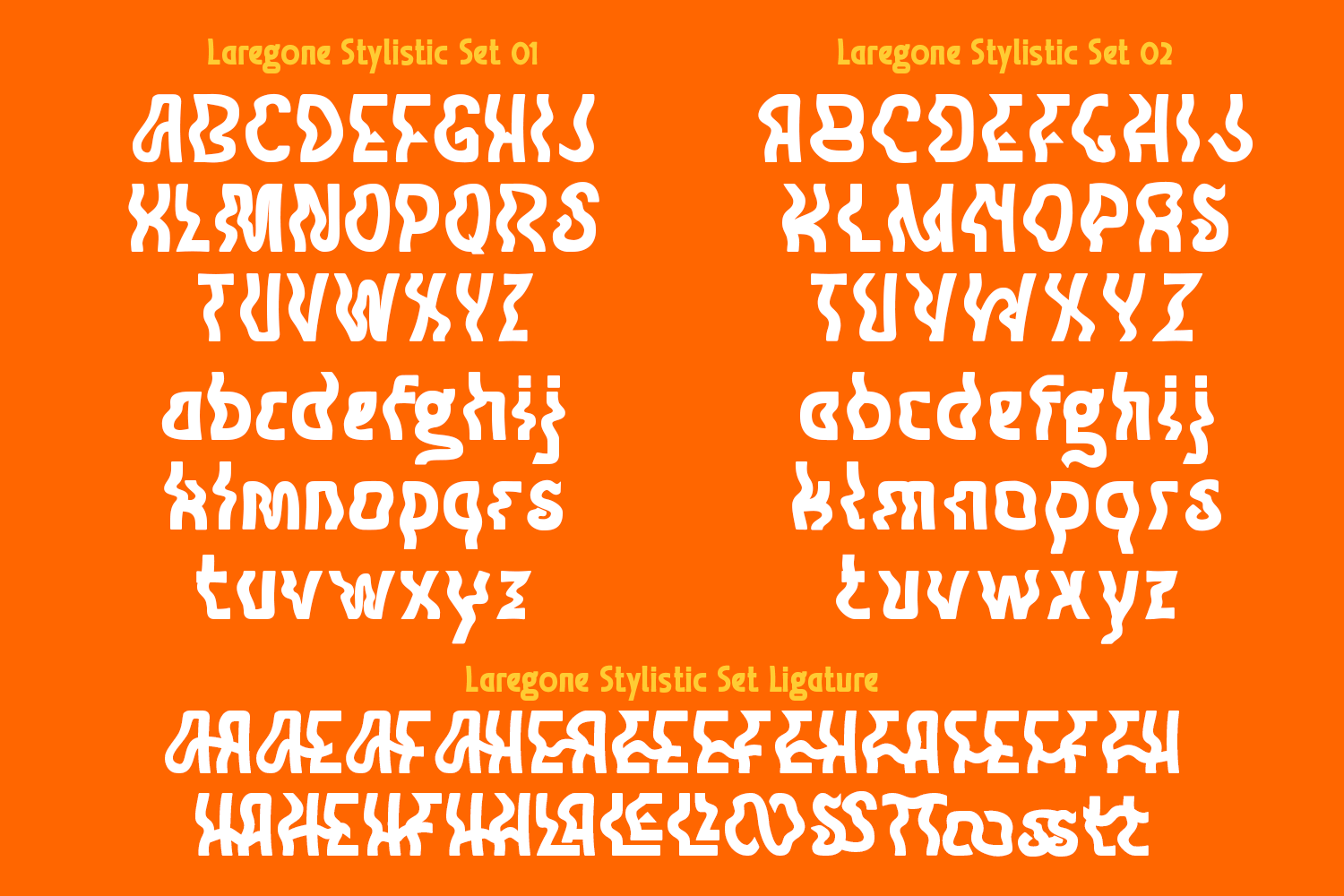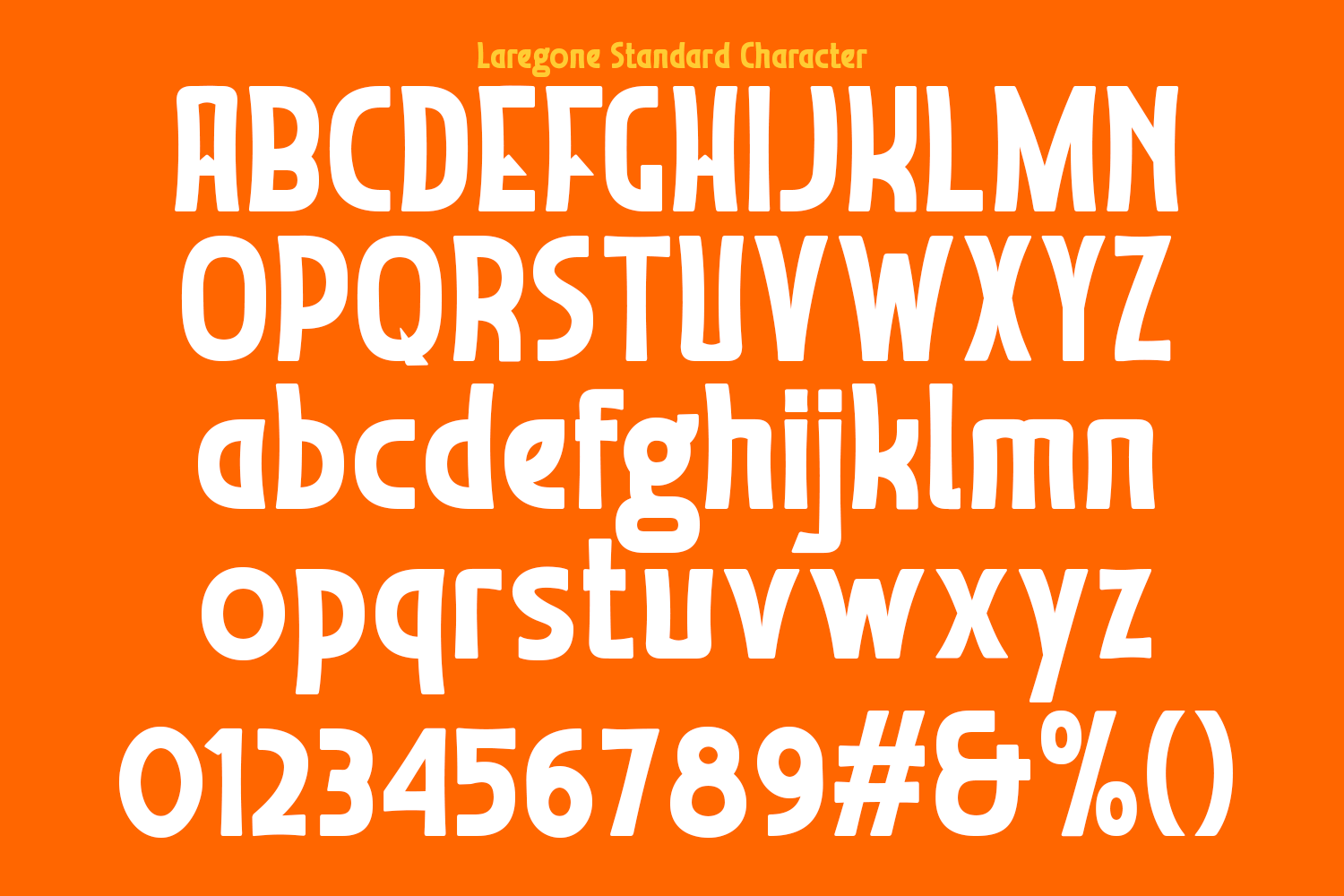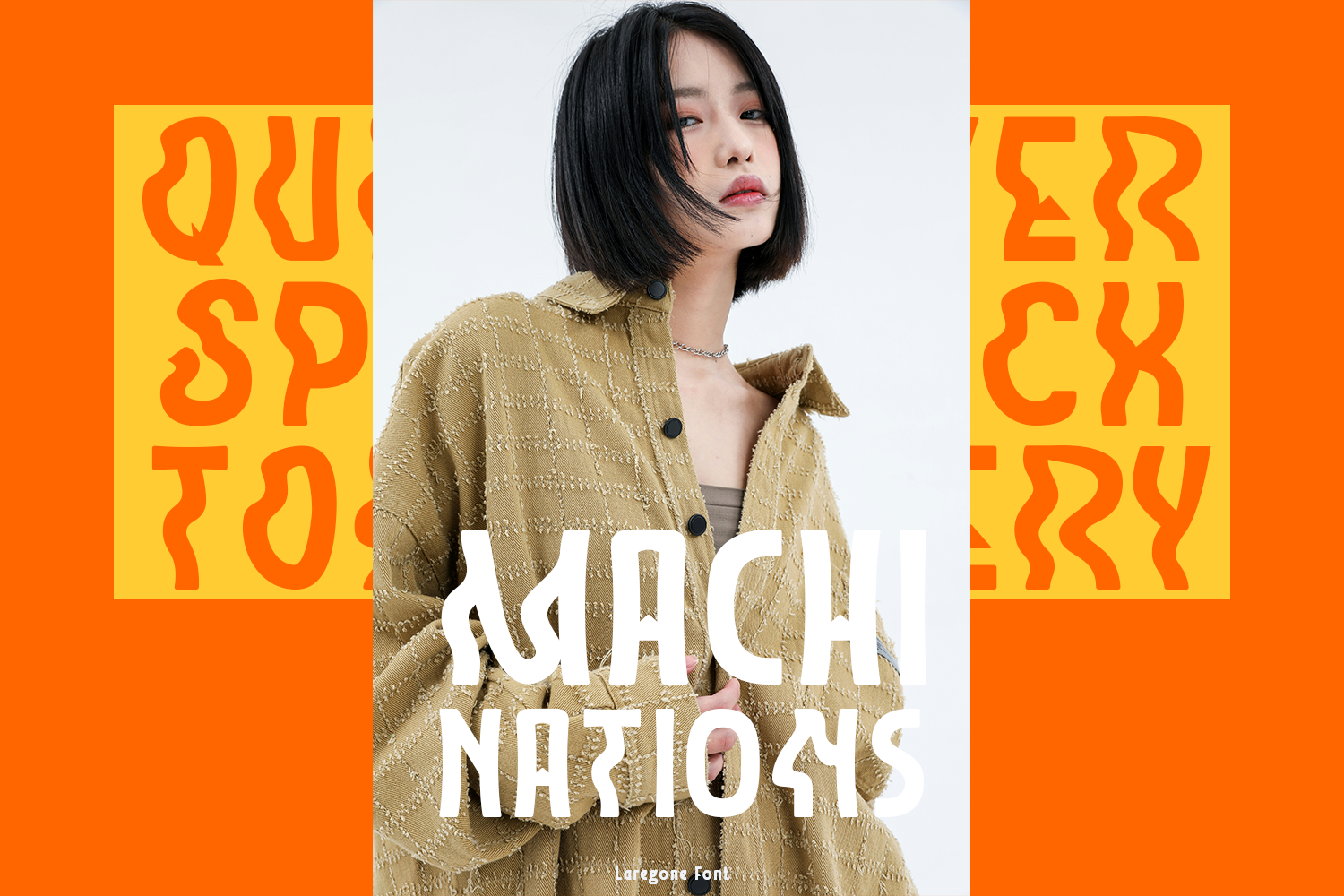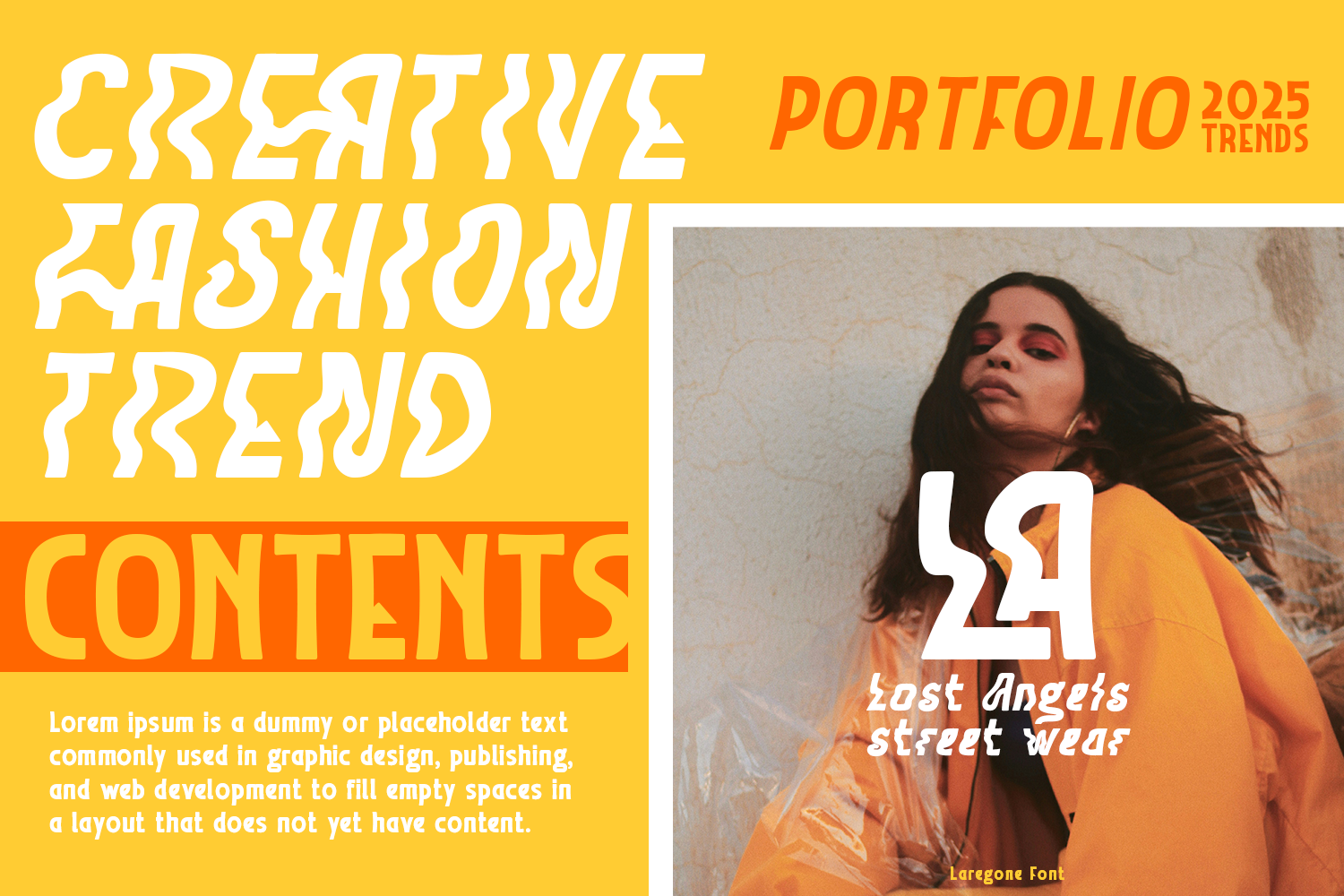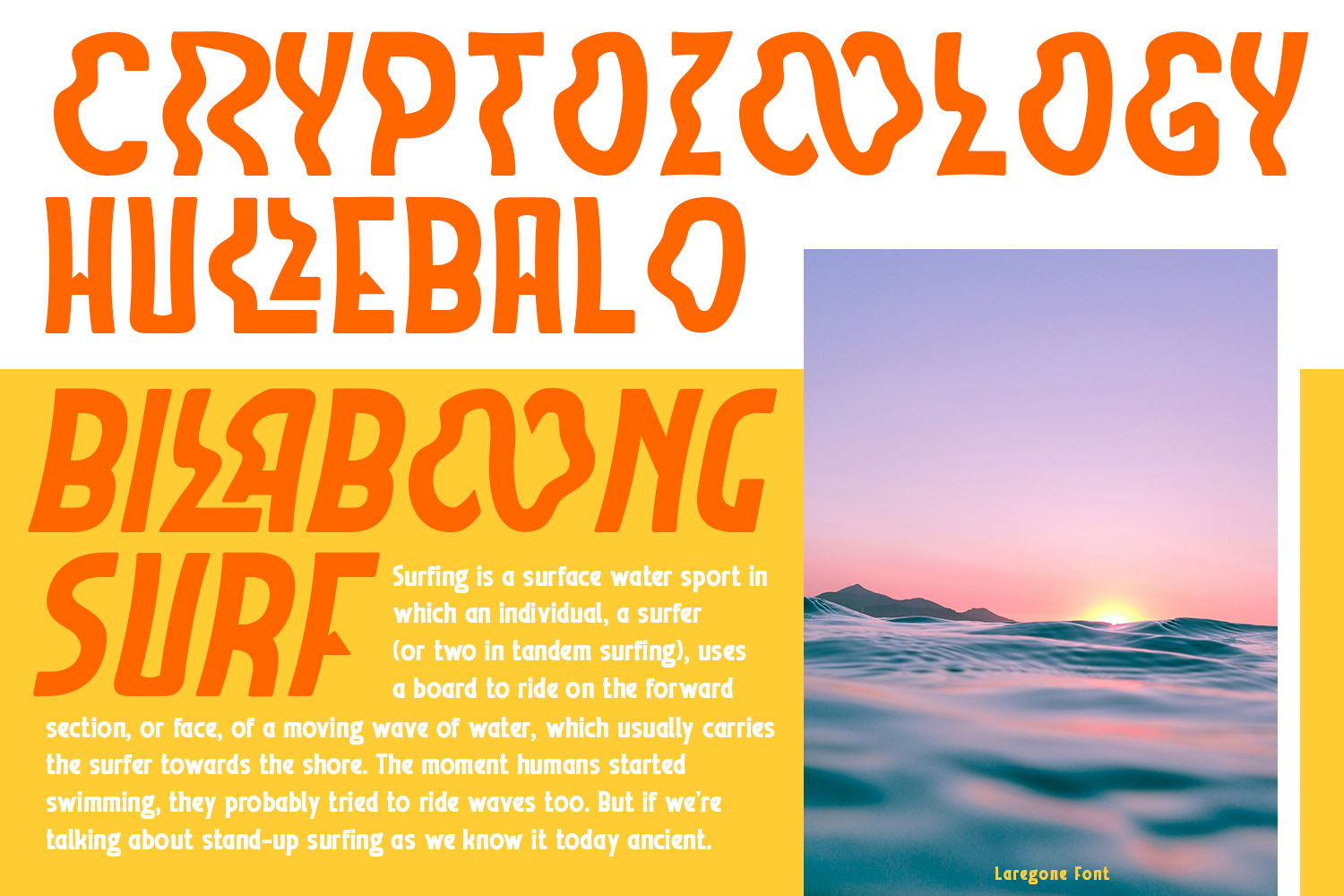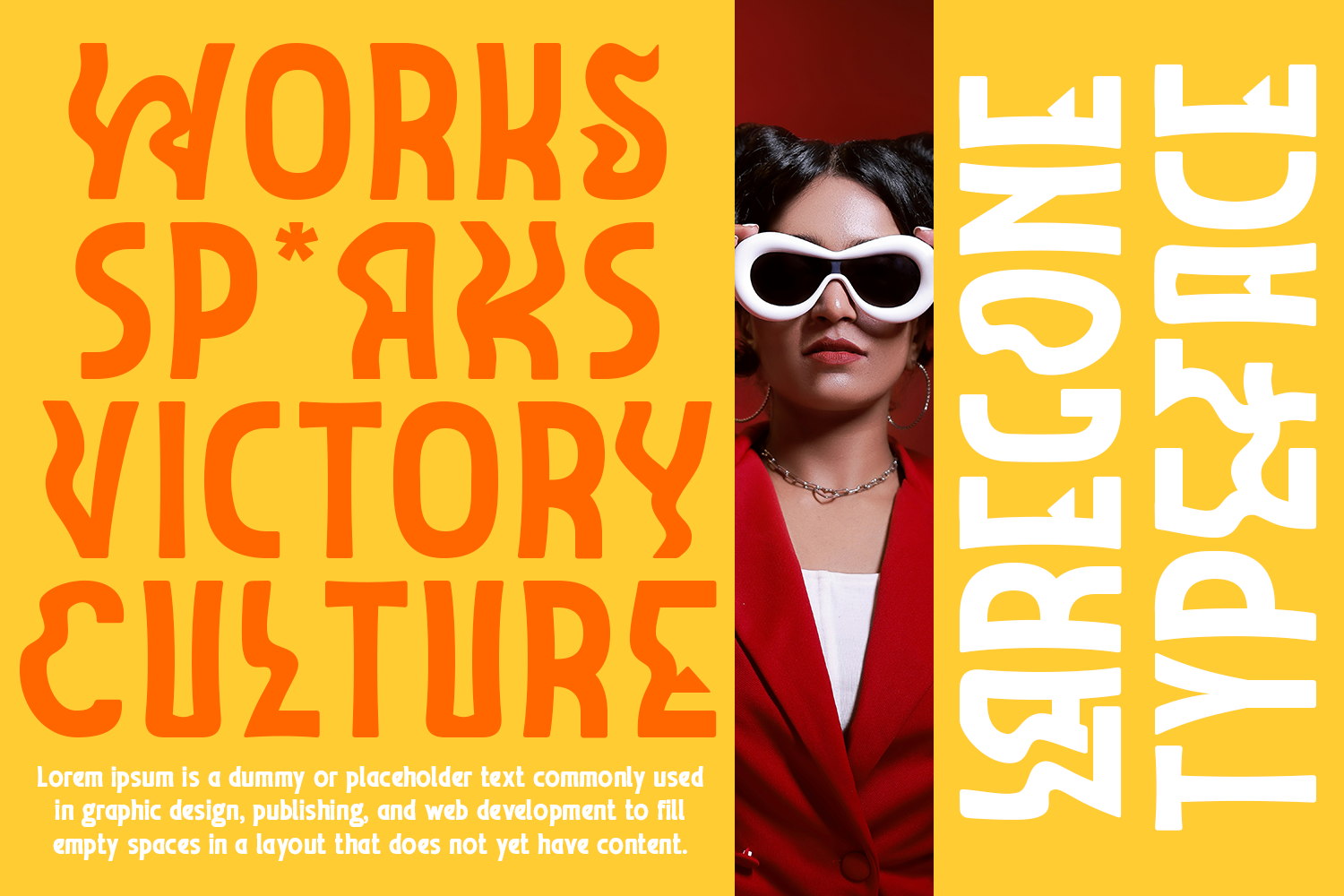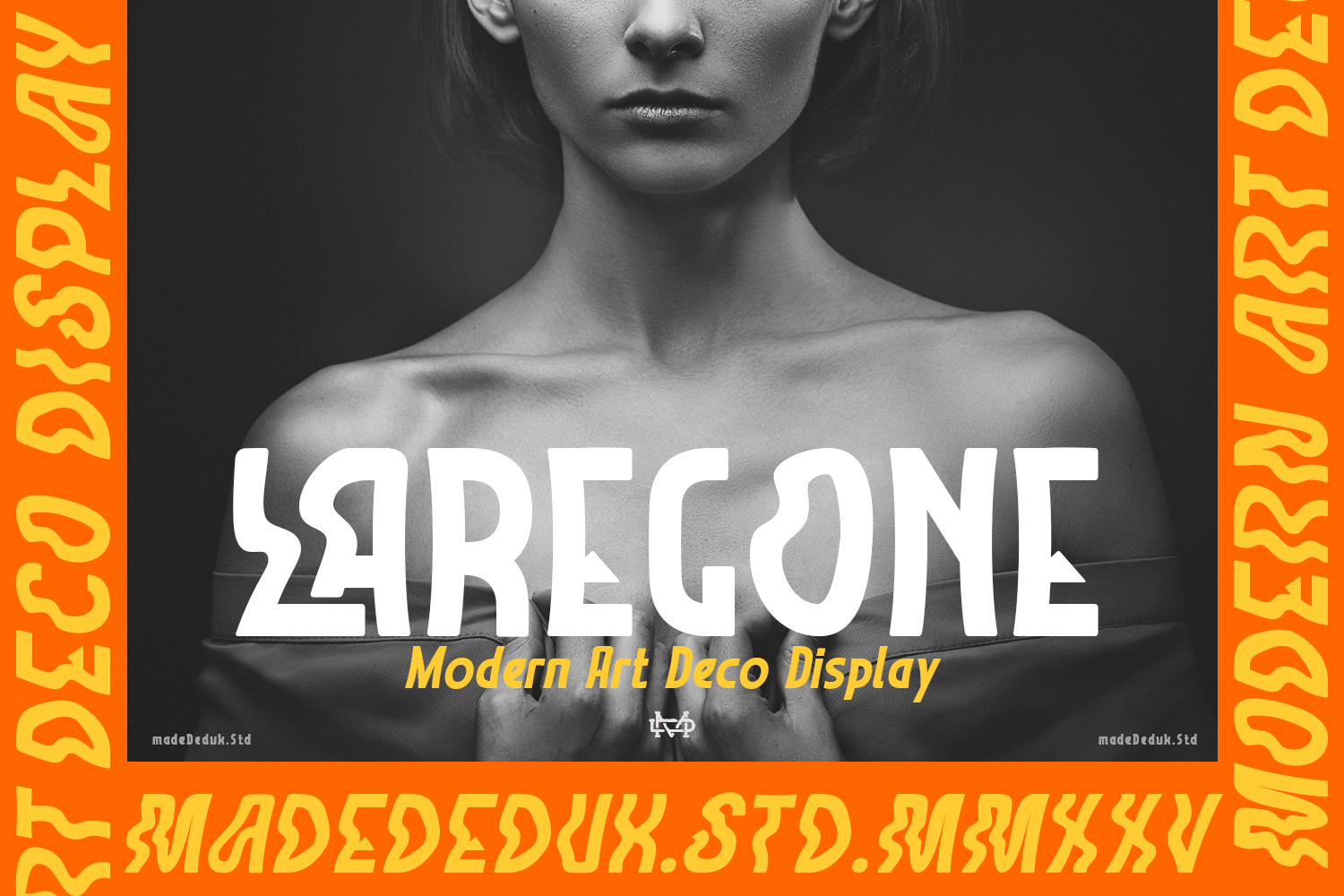
Laregne Font
A new modern Art Deco display font with unique, luxury, wave, vintage, and classy look to make their design look more unique and classic. Ligatures and alternative characters to help you create variations for your creative needs. Perfect for branding, logo, apparel, invitations, social media, packaging, label, photography, and any projects.
- Number & Symbol
- International Glyphs
- Alternative
- Ligature